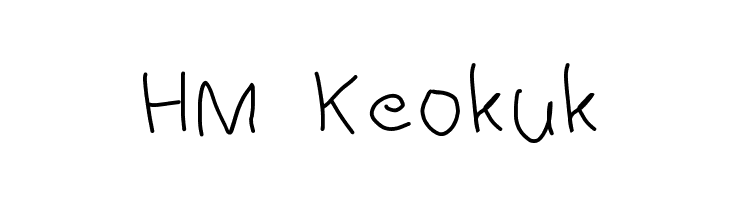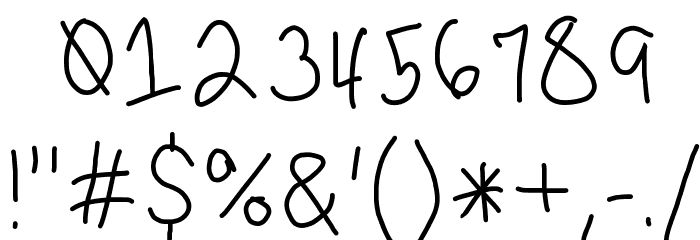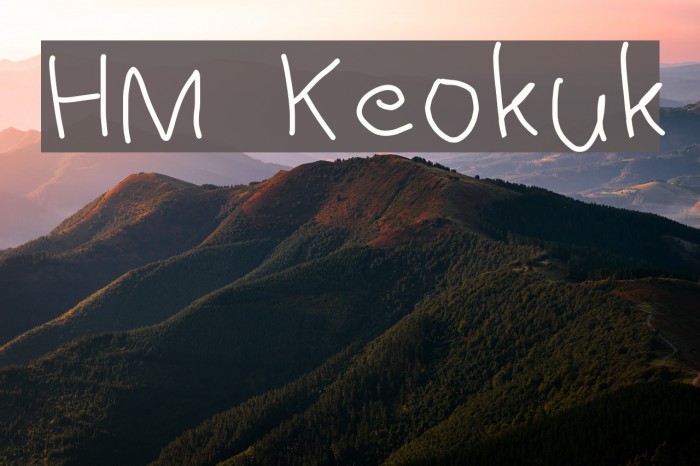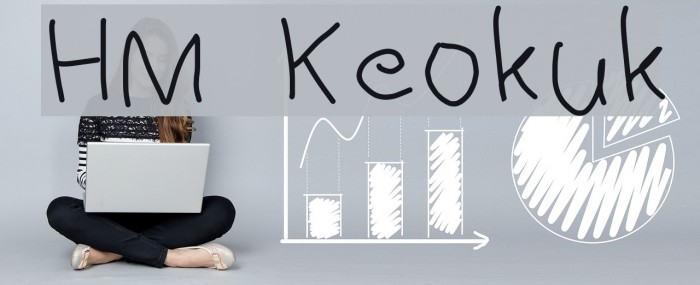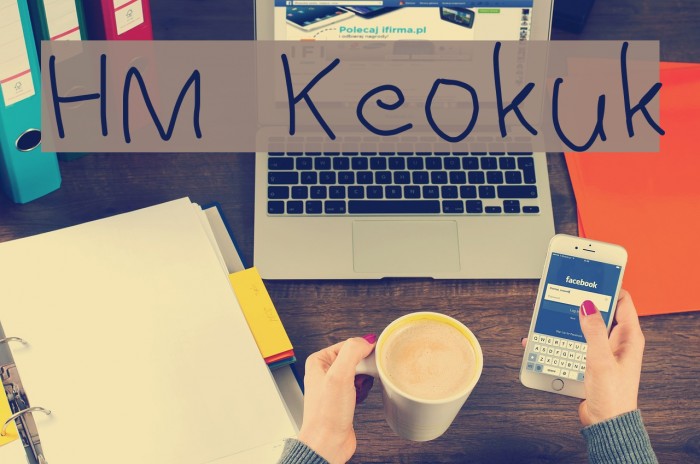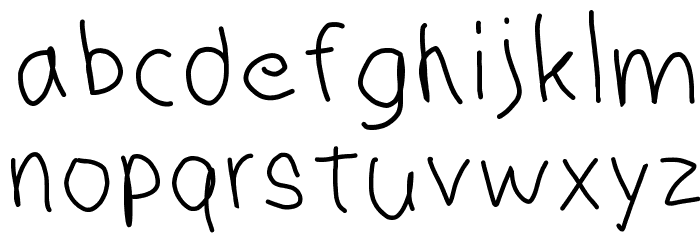
HM Keokuk Font
This font exhibits a playful and informal handwritten style, characterized by its irregular and slightly uneven strokes. The letters have a casual, friendly appearance, with a natural flow that mimics the spontaneity of hand-drawn text. The uppercase and lowercase letters maintain a consistent style, with rounded edges and a slight tilt that adds to the font's approachable aesthetic. Numbers and special characters are crafted with the same whimsical touch, ensuring a cohesive look across all glyphs. This font is ideal for projects that require a personal, human touch, such as greeting cards, invitations, or children's book illustrations.
• Proposed Projects: Ideal for greeting cards, invitations, children's books, and informal branding.
• Category: Handwritten
• Overall Style: Casual, Playful
• Use Case: Headlines, Informal text, Creative projects